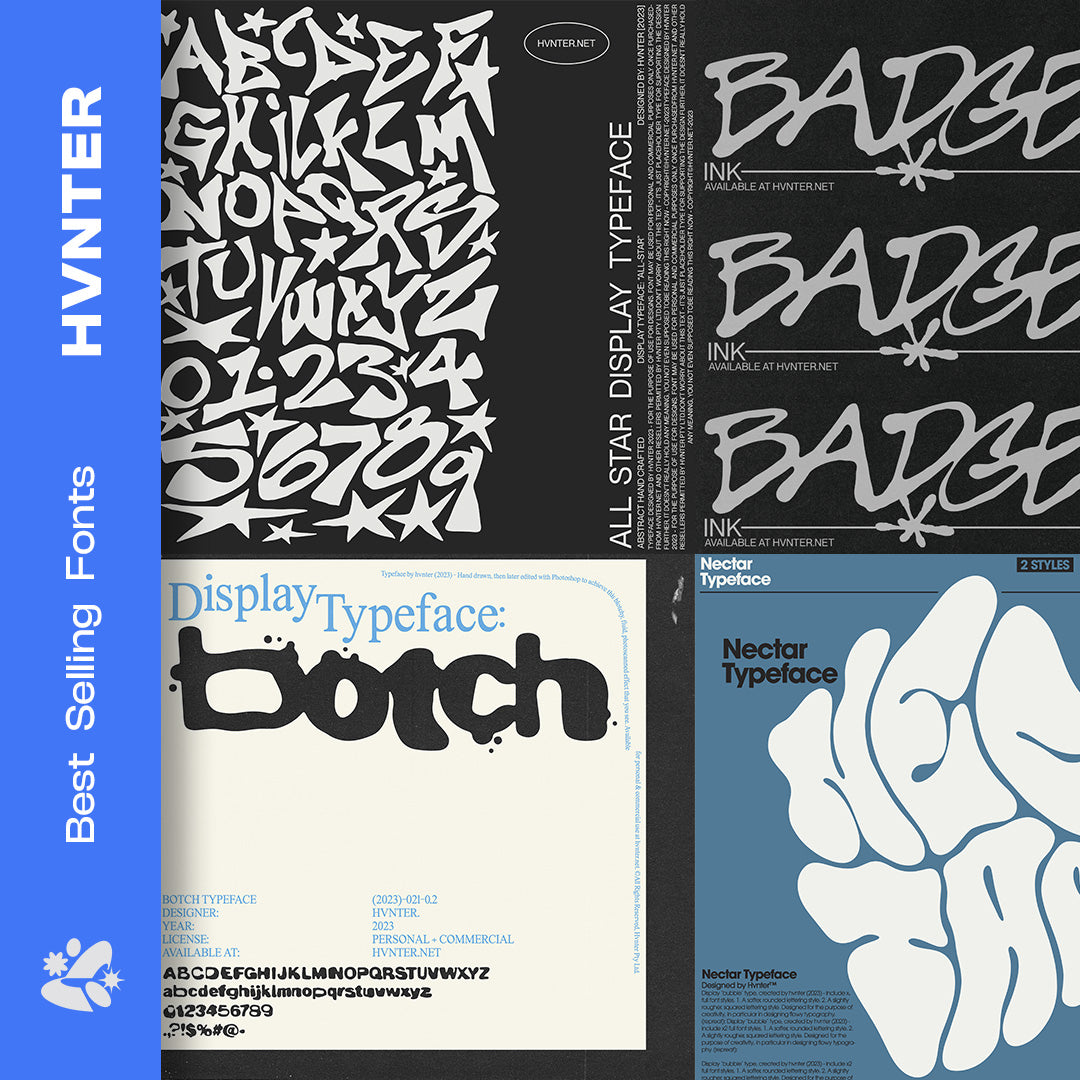
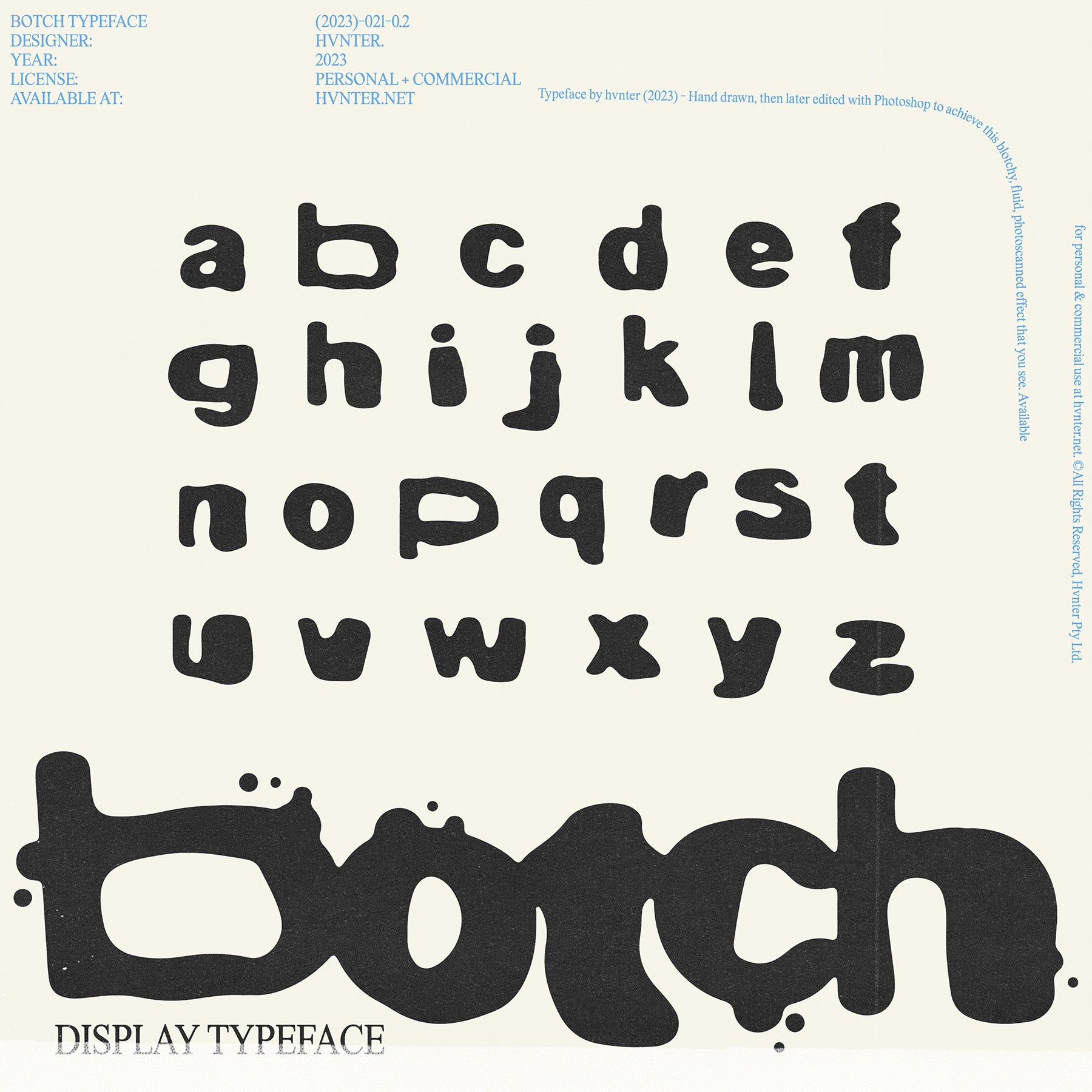
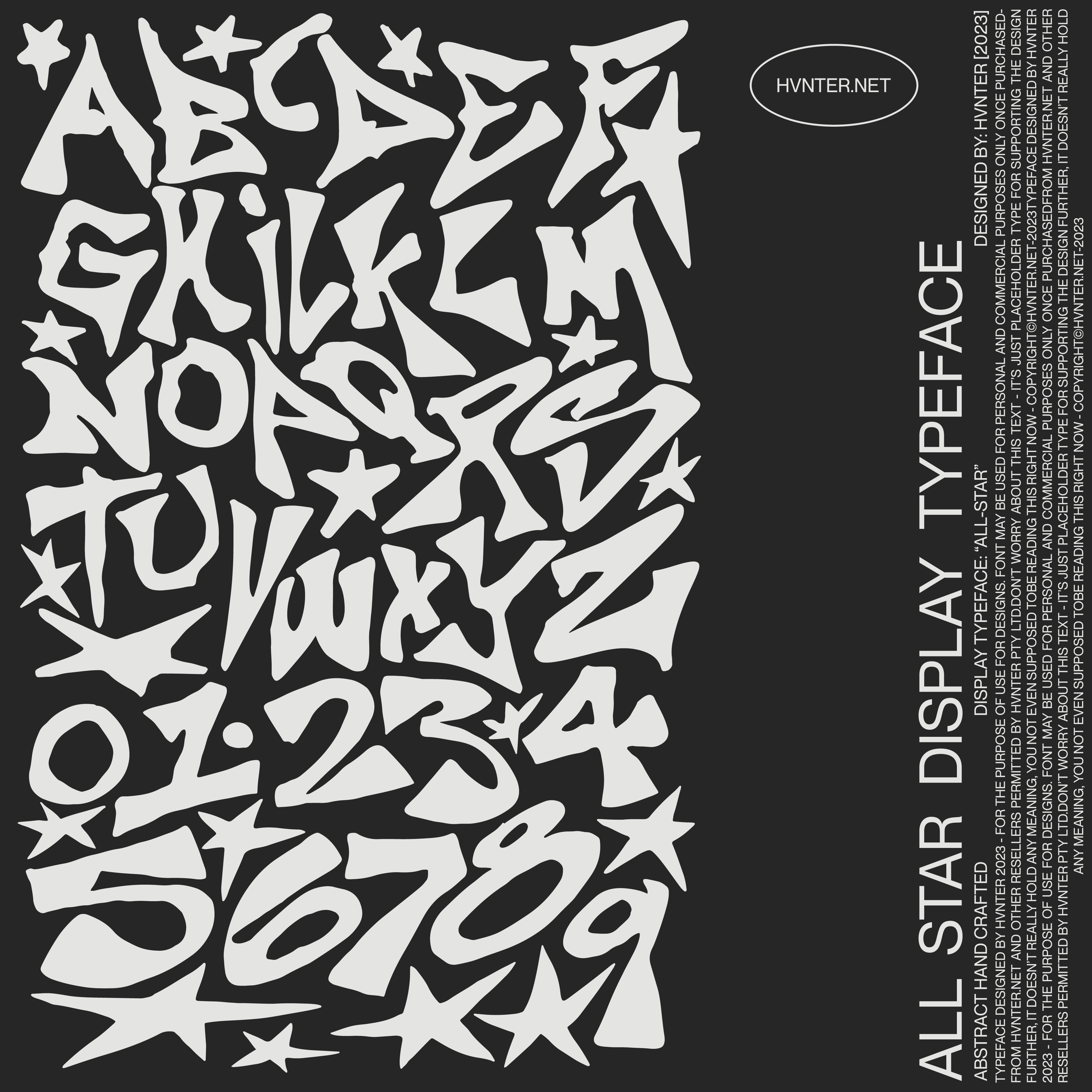
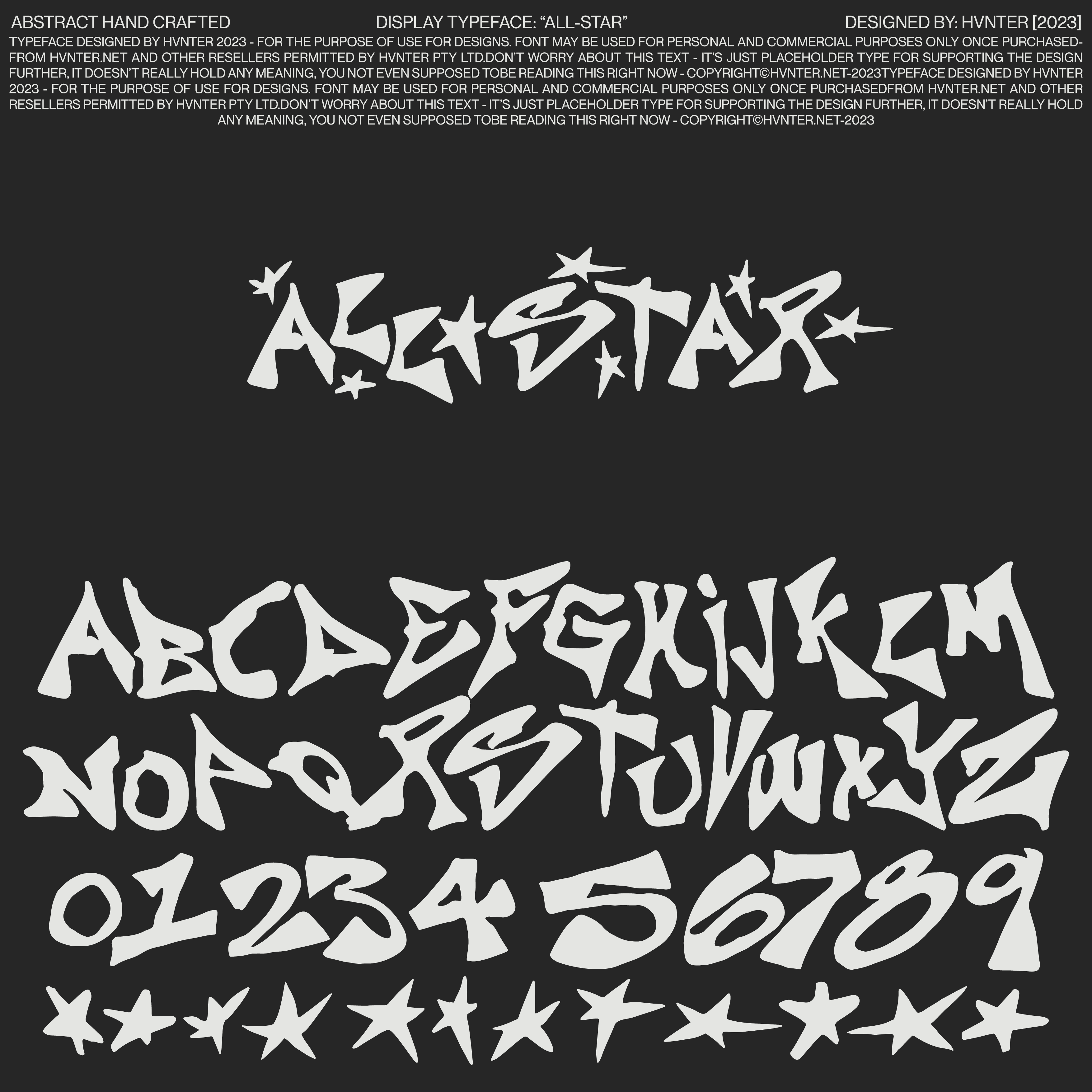
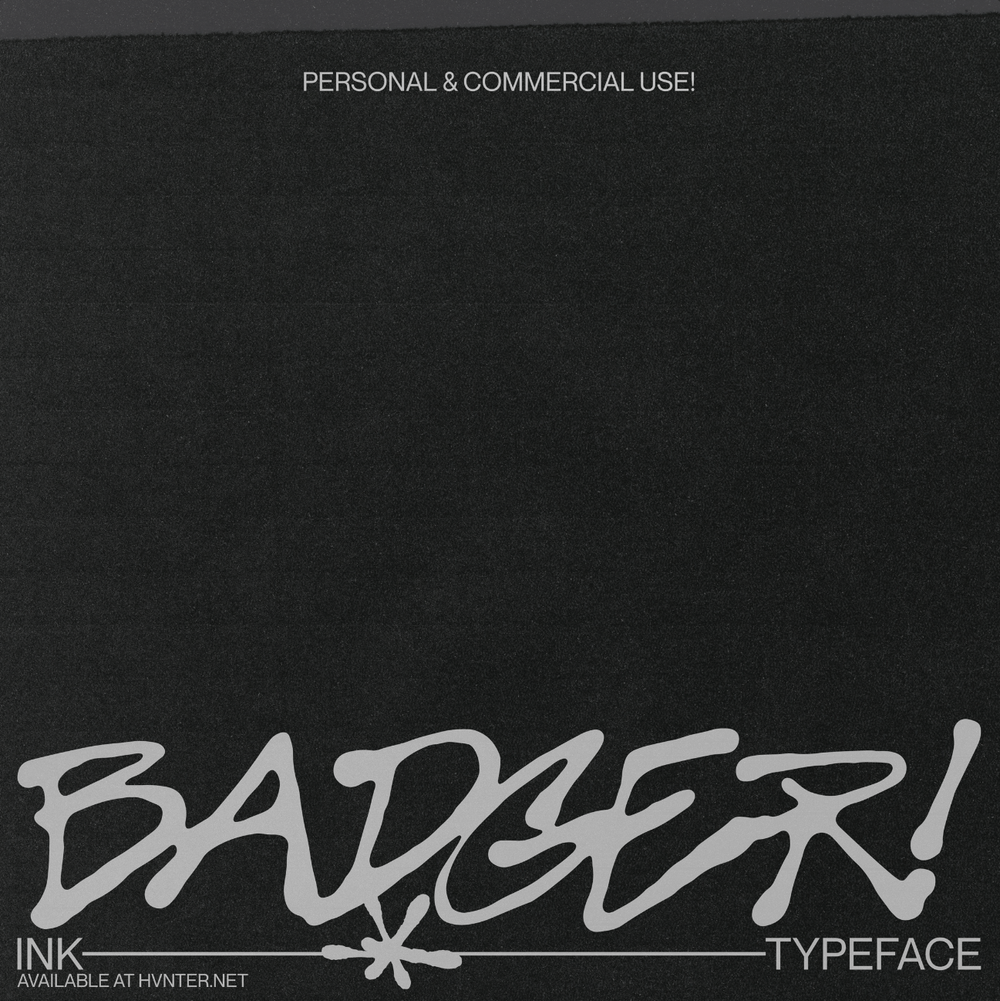
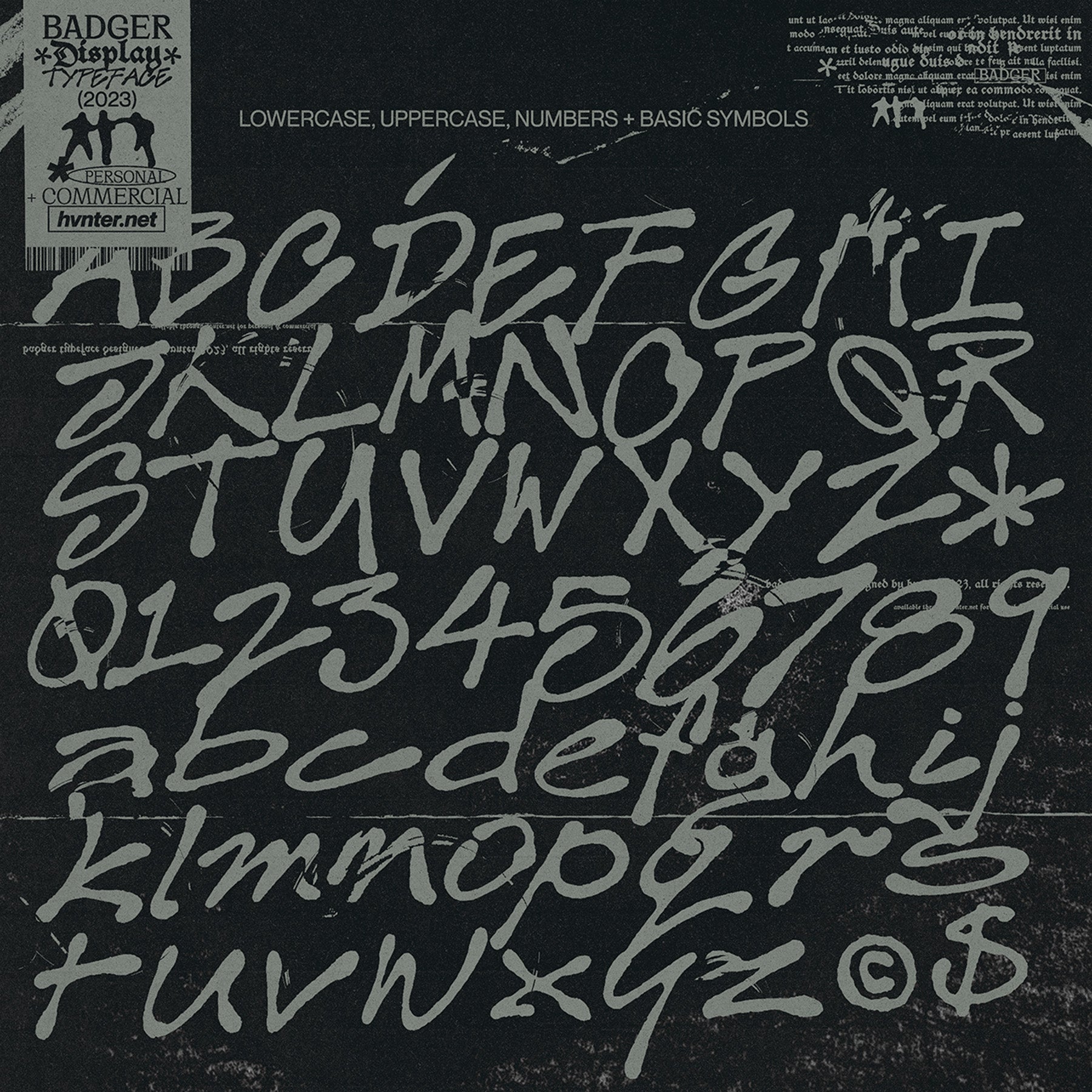
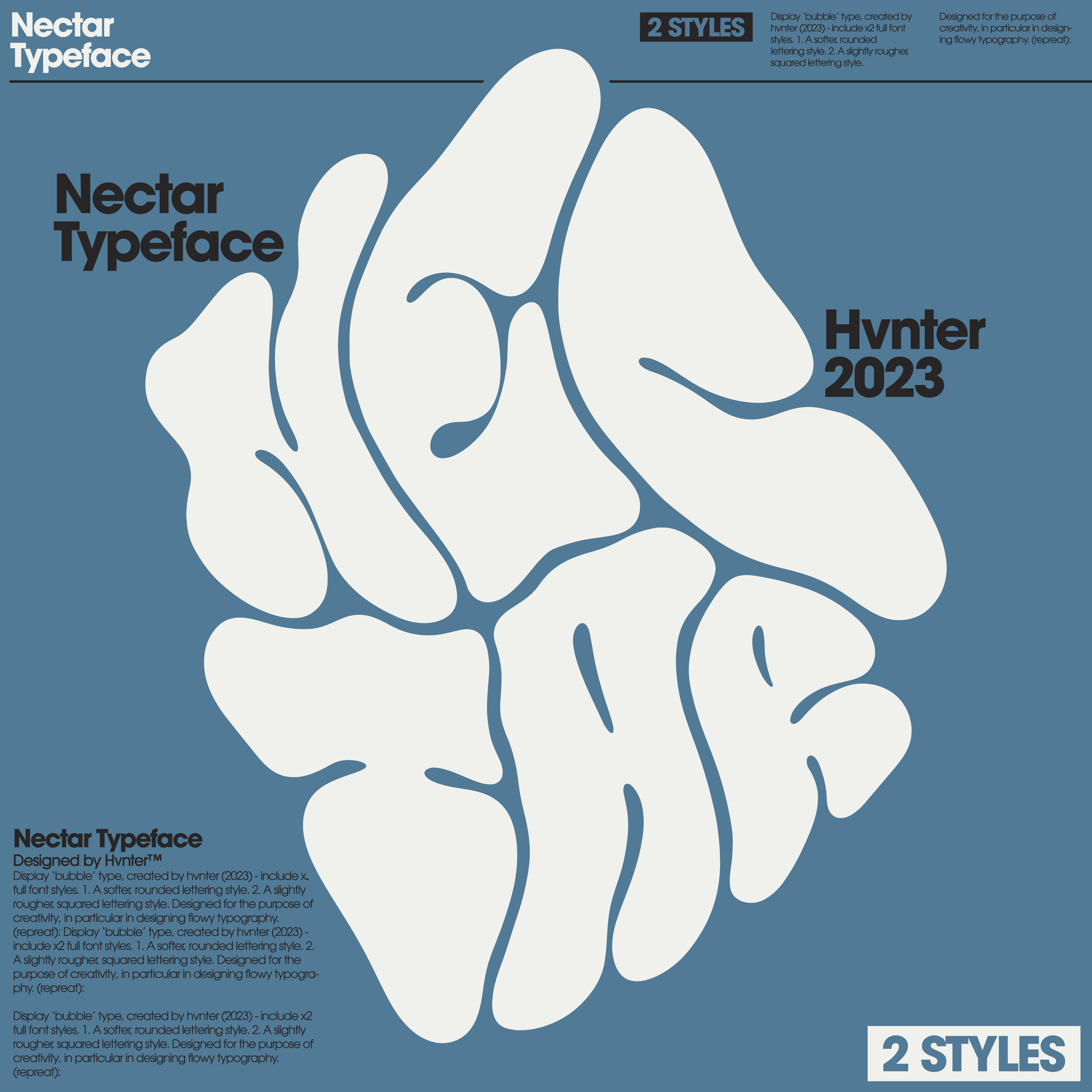
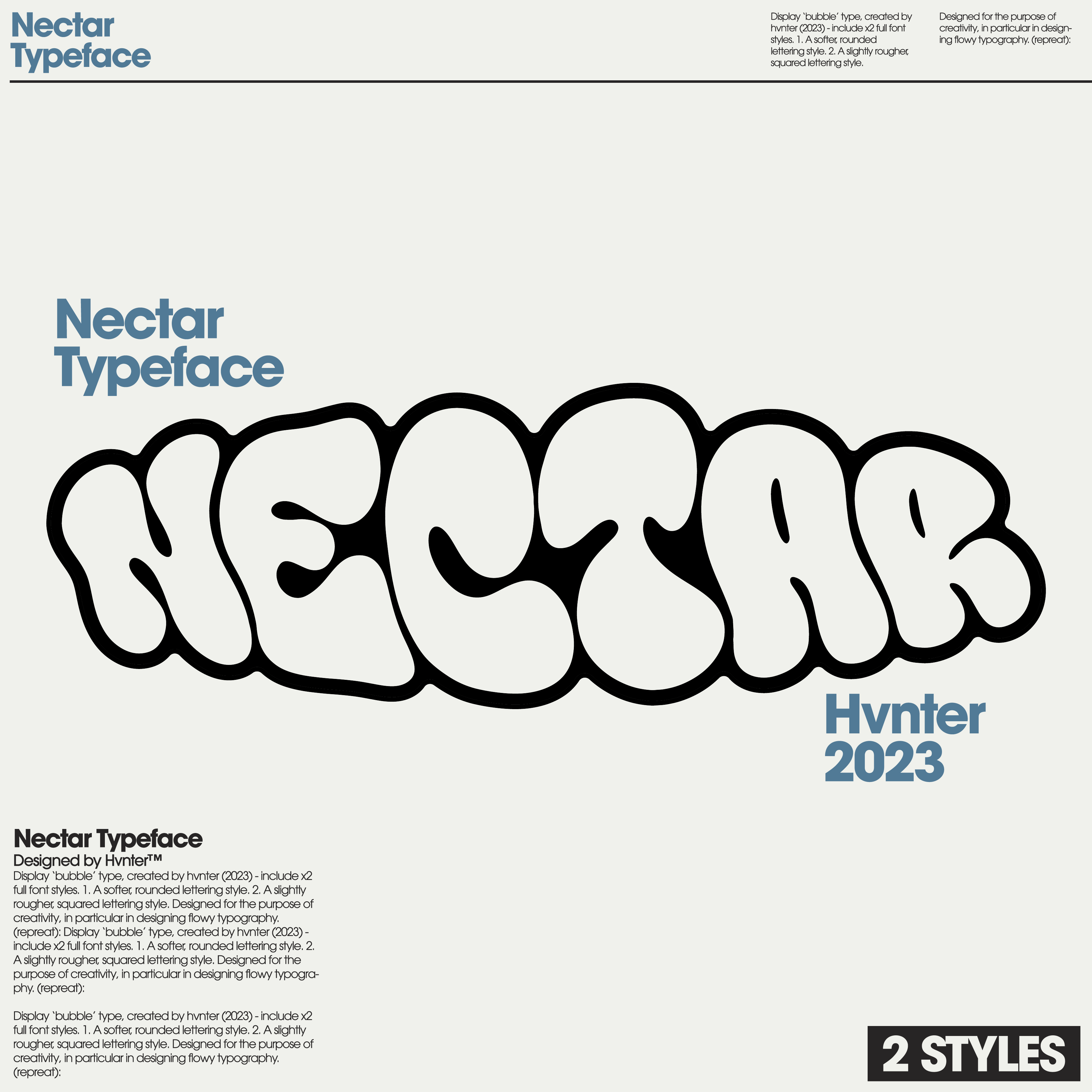
Best Selling Fonts Bundle HVNTER
Enhance your design projects with the Best-Selling Fonts Bundle by HVNTER, a meticulously curated collection of four unique and versatile typefaces. Perfect for designers, artists, and creatives, this bundle offers four distinctive fonts crafted by HVNTER, ideal for album covers, poster design, branding, and more.
All Star Typeface
Botch Typeface
Badger Typeface
Nectar Typeface